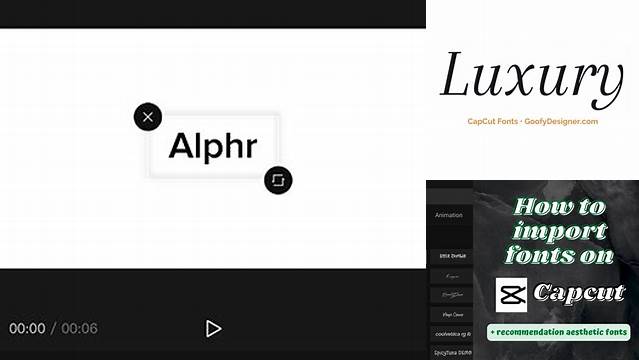
Best CapCut Fonts: Make Your Videos Pop!
Hey guys! Ever wondered how to make your videos pop on CapCut? One of the secret ingredients is using the right fonts! Fonts can totally change the vibe of your video, making it more engaging, professional, or just plain fun. In this article, we're diving deep into the world of CapCut fonts, exploring the most popular choices, how to use them effectively, and how to even add your own custom fonts. So, buckle up and let's get typographically savvy!
Why Fonts Matter in Video Editing
Let's get real, guys. In the fast-paced world of online video, you've got seconds to grab someone's attention. Your visuals are key, of course, but your text is just as important. Think about it: your text is often the first thing people read, and it sets the tone for everything else. The right font can communicate your message clearly, enhance your brand identity, and even evoke certain emotions. A clean, modern font might be perfect for a tech tutorial, while a playful, handwritten font could be awesome for a vlog. Choosing the wrong font, on the other hand, can make your video look amateurish or even turn viewers off completely.
Fonts are more than just letters; they're a visual representation of your message. They carry personality, style, and tone. Think of fonts as the voice of your video – would you want a monotone, robotic voice, or one that's engaging and full of character? Exactly! That's why understanding typography is crucial for any video editor, whether you're a seasoned pro or just starting out. By selecting fonts that complement your video's content and overall aesthetic, you can create a viewing experience that's not only informative but also visually appealing. It’s about striking that perfect balance between readability and style, ensuring your message is delivered effectively and with impact.
Furthermore, the consistency of font usage across your videos can significantly contribute to your branding. Imagine always using the same font for your intro titles and outro screens – it creates a visual signature that viewers begin to associate with your content. This builds recognition and helps reinforce your brand identity in the long run. So, guys, don't underestimate the power of a good font! It's a small detail that can make a huge difference in the overall impact of your videos.
Top Popular Fonts in CapCut
Okay, so now that we know why fonts are so important, let's get into the fun stuff: the best fonts in CapCut! CapCut has a solid library of fonts to choose from, but some are definitely more popular than others. These fonts are popular for a reason – they are versatile, readable, and visually appealing for a wide range of video styles. Here are some standout fonts that you'll find yourself reaching for again and again:
Montserrat: This is a classic sans-serif font that's clean, modern, and super versatile. It's perfect for titles, subtitles, and body text, making it a real workhorse in your font arsenal. Its geometric design ensures excellent readability, making it suitable for various video content, from professional tutorials to engaging vlogs. Montserrat’s wide range of weights, from thin to bold, gives you even more flexibility to adapt the font to your specific needs. Using Montserrat can give your videos a polished and sophisticated look, ideal for creating a professional impression.
Open Sans: Another fantastic sans-serif option, Open Sans is known for its neutral yet friendly appearance. It's highly readable on screens, which is a major plus for video content. Open Sans shines in longer text segments, where readability is paramount. Its clean lines and open forms make it easy on the eyes, ensuring your audience can focus on your message without strain. If you're creating educational content or tutorials with significant text overlays, Open Sans is an excellent choice to maintain clarity and engagement.
Poppins: Poppins is a geometric sans-serif font that exudes modernity and style. It's a great choice for titles and headings, adding a touch of sophistication to your videos. With its clean and contemporary aesthetic, Poppins works well in videos targeting a younger audience or those with a tech-savvy theme. The font’s versatility allows it to be used in various creative contexts, from sleek promotional videos to stylish social media content. Poppins’ distinct character makes it a memorable and impactful choice for your video projects.
Roboto: Roboto is a widely used font that strikes a perfect balance between modern and classic. It's incredibly versatile and works well in various contexts, from titles to body text. Its mechanical skeleton and largely geometric forms lend it a modern yet approachable feel. Roboto’s extensive family of weights and styles ensures it can adapt to a variety of video content needs, making it a reliable option for consistent branding. Whether you’re creating a corporate video or a dynamic presentation, Roboto’s adaptability makes it a solid choice.
Bebas Neue: Looking for something bold and attention-grabbing? Bebas Neue is your font! This condensed sans-serif font is perfect for headlines and titles, making a statement without taking up too much space. Its tall and narrow letters convey a sense of strength and modernity, making it ideal for impactful messaging. Bebas Neue is especially effective in short, punchy titles and captions, adding a visual punch to your videos. If you want to make a big impression with your text, Bebas Neue is the way to go.